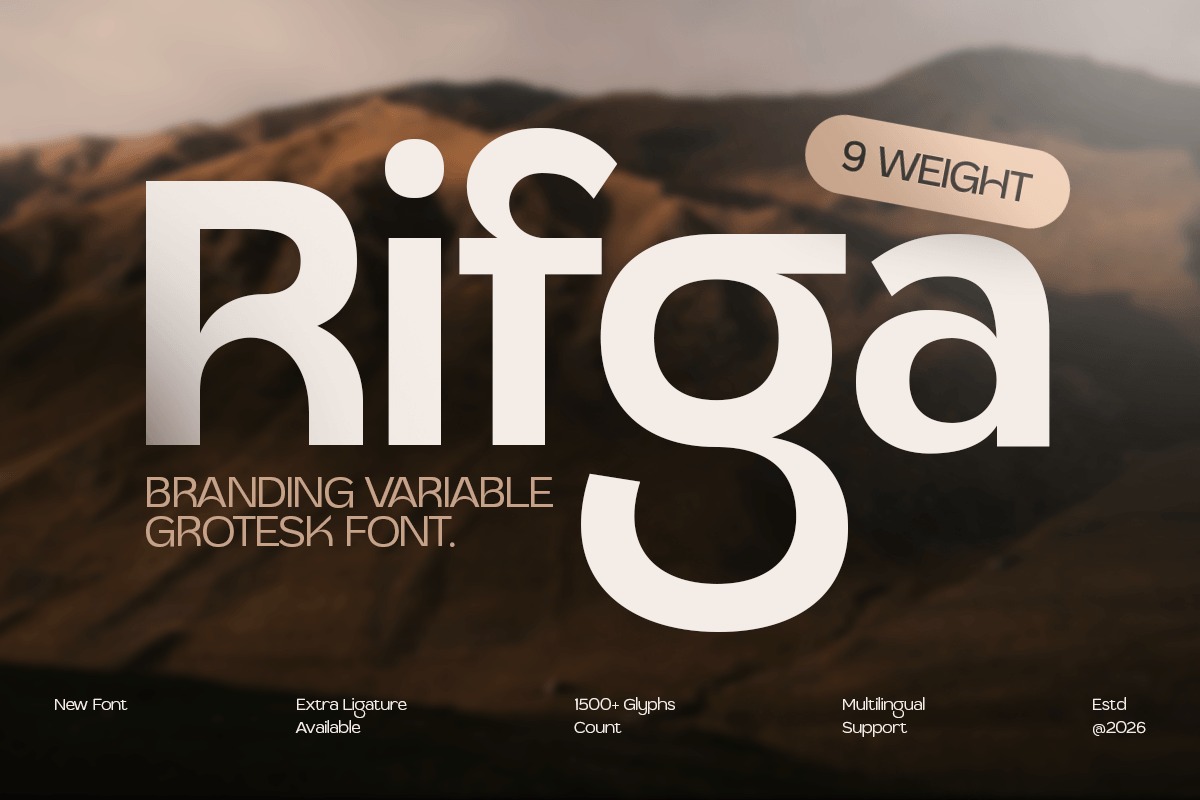
Rifga Font Family
Rifga Font Family is a premium-quality font developed to enhance your work with a polished, modern, and visually elevated look. Rifga – Modern Sans Serif Font Family Rifga is a modern sans serif font family designed to deliver clarity, versatility, and contemporary visual appeal. Featuring clean letterforms, balanced proportions, and a minimalist aesthetic, Rifga is perfect for branding, editorial layouts, corporate design, web interfaces, and modern creative projects.
Combining geometric precision with elegant simplicity, Rifga creates a professional and highly readable visual identity. Its versatile family structure allows seamless use across headlines, body text, logos, and digital applications while maintaining a sleek and modern appearance, making it ideal for agencies, startups, fashion brands, and business visuals.
Rifga – Modern Sans Serif Font Family Features:
Modern sans serif style with clean minimalist aesthetics
Available with multiple weight, almost 9 weights ready
Balanced geometric letterforms with versatile usability
Ideal for branding, editorials, websites, and corporate design
Font family with multiple weights and style variations
Uppercase, lowercase, numerals, and punctuation included
Perfect for startups, agencies, fashion, and digital visuals
Create clean and professional designs with Rifga – the modern sans serif font family built for versatile branding.